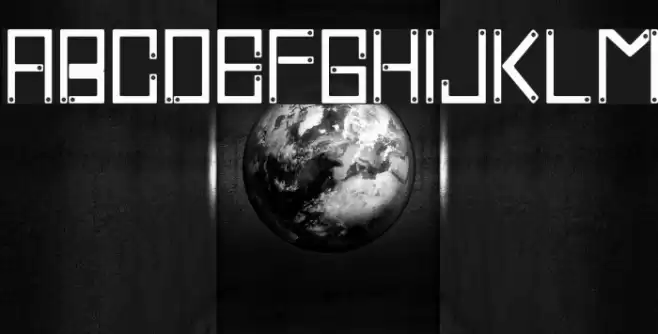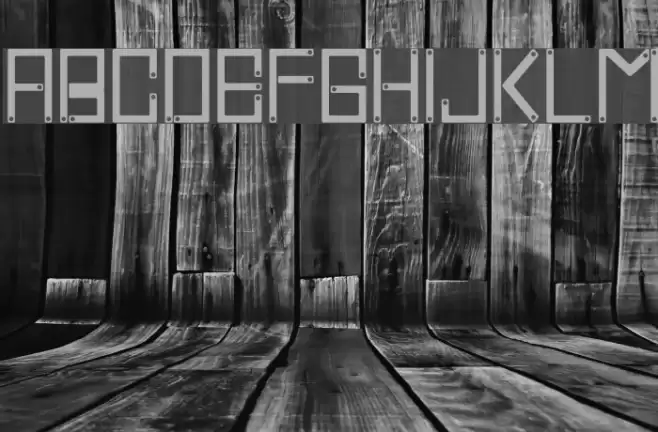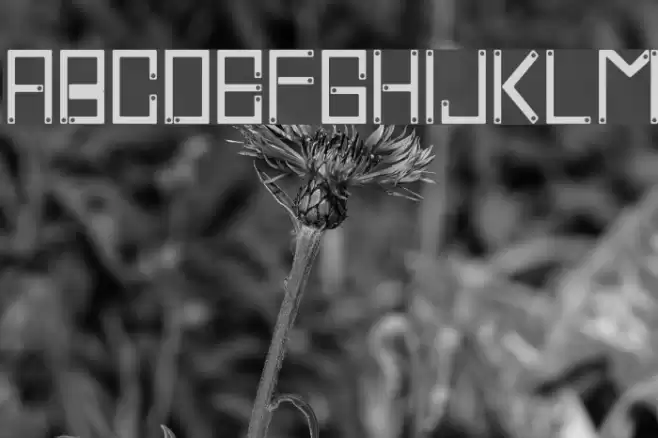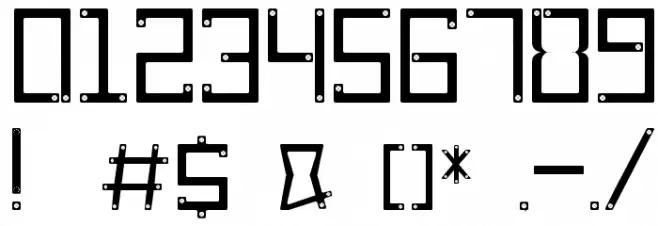
Cross Screw Font
Cross Screw Description
This font features a unique and industrial design, characterized by its use of screw-like elements integrated into the structure of each character. The letters are constructed with bold, geometric lines, giving them a mechanical and robust appearance. The inclusion of small circular details mimicking screws adds a distinctive touch, making it stand out as a decorative typeface. The font maintains a consistent weight throughout, with a regular width that ensures readability despite its decorative nature. The characters are evenly spaced, providing a balanced and cohesive look. This font is ideal for projects that require a modern, industrial aesthetic, such as branding for tech companies, construction firms, or any design that seeks to convey strength and innovation.
A bold, industrial font with screw-like details and geometric lines from Uncategorized fonts.
- Proposed Projects: Ideal for tech branding, construction logos, and modern industrial-themed designs.
- Overall Style: Modern, Industrial
- Use Case: Logos, Headlines, Branding